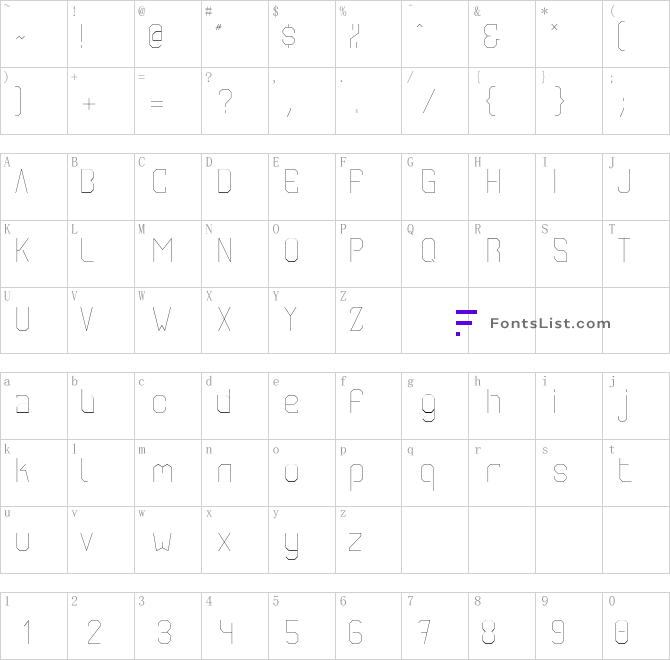
- Font Name:Anxiolytic
Anxiolytic-Light.ttf is a very beautiful artistic font, Anxiolytic-Light.ttf is widely used in the design and printing of various books and pictures,Anxiolytic-Light.ttf has a strong visual impact,Anxiolytic-Light.ttf is a commonly used font in newspapers, magazines and books, and is used in posters, e-commerce Poster design, store design, logo design, font design and other fields.Anxiolytic-Light.